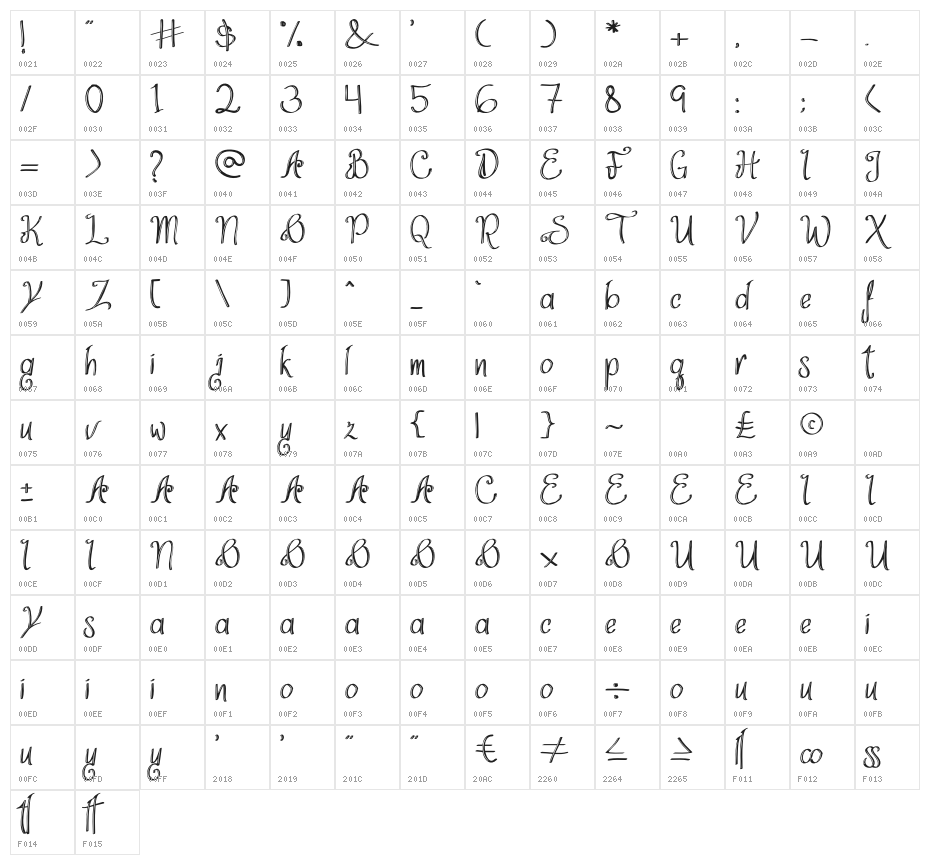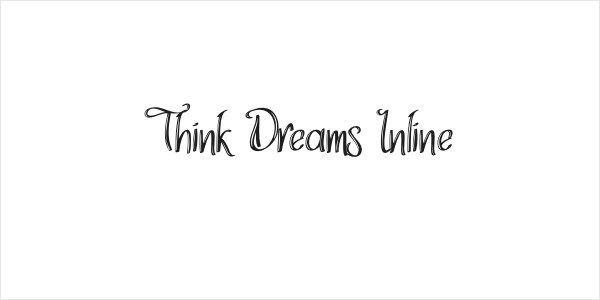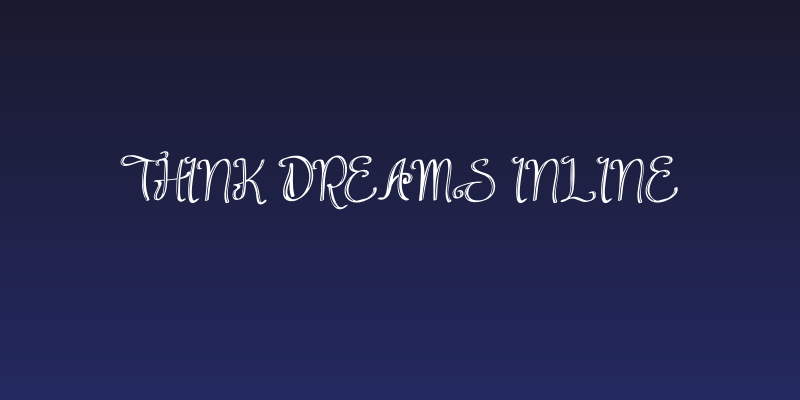
Think Dreams Inline Font
Think Dreams Inline Description
This font features a unique and artistic style with an inline design that adds depth and dimension to each character. The letters are elegantly curved with a flowing script-like appearance, yet maintain a structured form. The uppercase letters are bold and prominent, while the lowercase letters have a more delicate and whimsical feel. Numbers and special characters are crafted with the same attention to detail, ensuring consistency throughout. The overall look is both modern and vintage, making it versatile for various design projects.
| Proposed Projects | Ideal for creative projects such as invitations, greeting cards, branding, and decorative posters. |